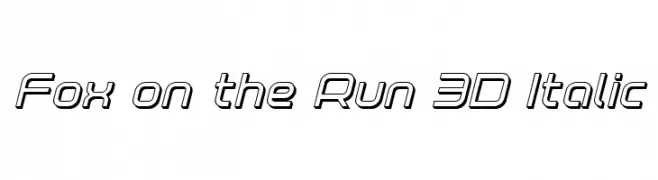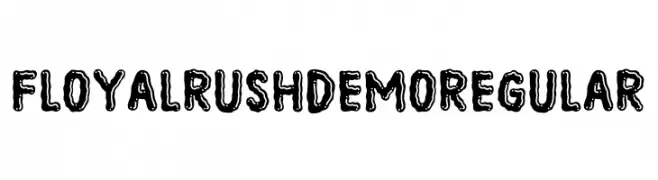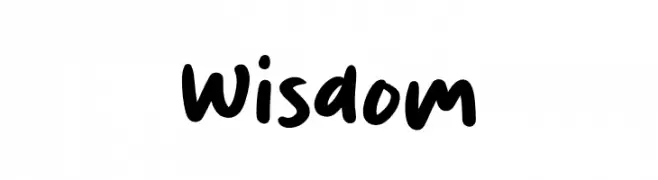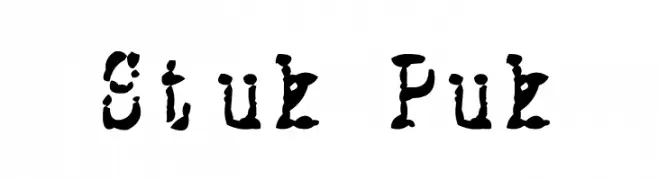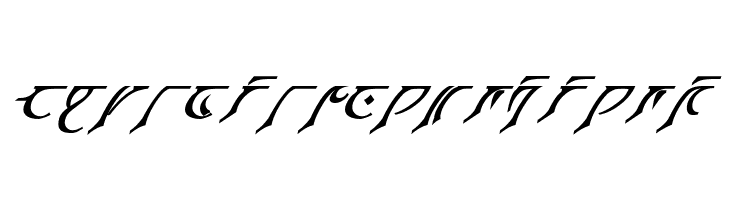
A bold, angular font with a geometric and modern style.
A whimsical, spooky font with distorted, playful characters.
A dynamic 3D italic font with bold outlines and geometric shapes.
A bold, decorative font with a hand-drawn, textured style.
A bold, playful handwritten font with rounded strokes and a casual style.
A modern, elegant handwritten font with flowing, interconnected letterforms.
A bold, Western-style font with thick serifs and a rugged aesthetic.
A playful, bold font with rounded, flowing strokes and a whimsical design.
A bold, rugged font with a hand-drawn, distressed appearance.
A distressed, grungy font with a bold, textured appearance.